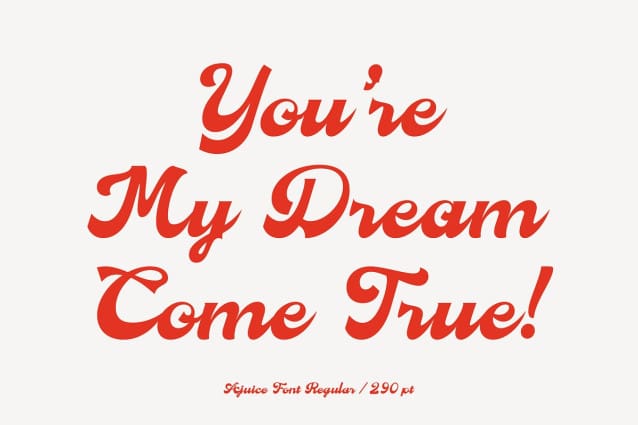
Ajuice Retro Font
Ajuice Retro Font is a high contrast script font with a romantic theme with two font styles ( Regular & Round ) which is perfect for your designs that want a romantic style, modern vintage, elegant, soft, and carefully crafted for all graphic design needs.